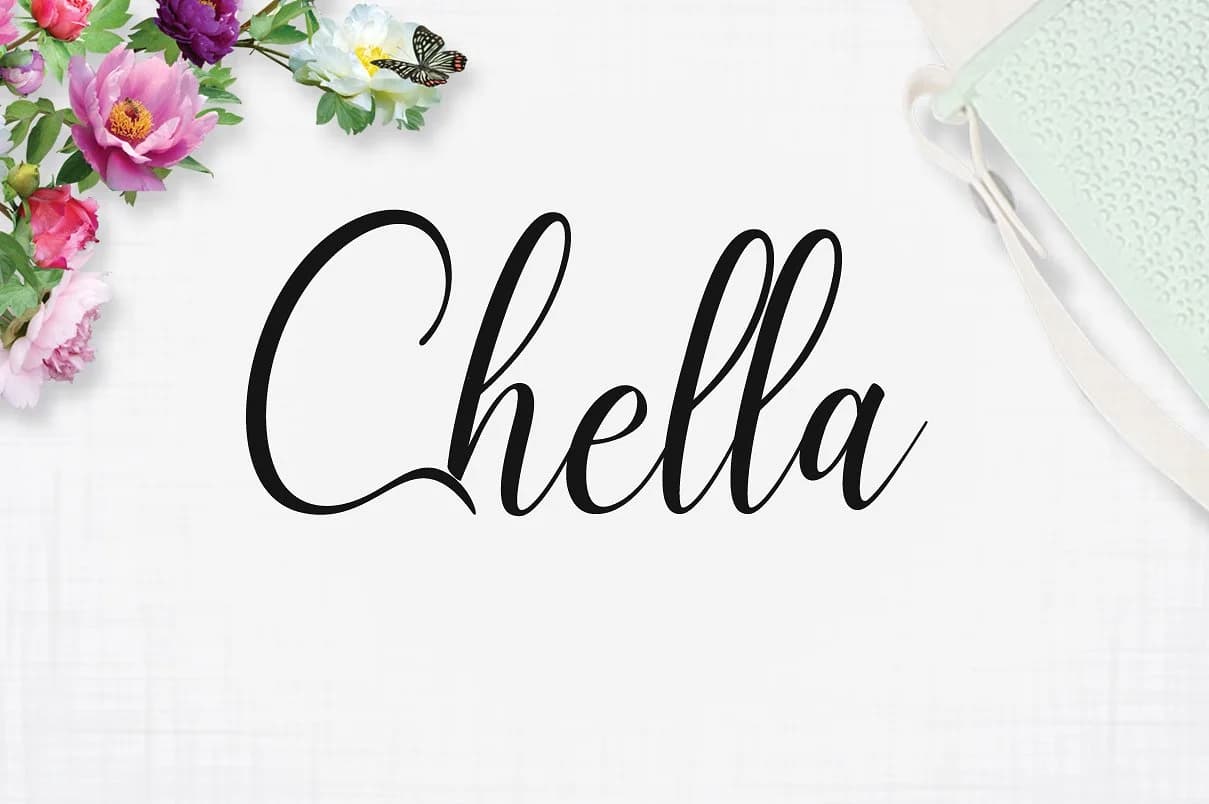
Chella by Greenland is a contemporary handwritten script that brings fluid elegance to modern creative work. With its smooth letterforms and refined stroke quality, this typeface strikes a balance between personality and sophistication, working across a diverse range of design applications without feeling overwrought or excessive.
This script excels for wedding invitation suites, where its balanced rhythm sets the right tone between formality and warmth. It's equally at home in personal branding systems, logo designs, and editorial headings that benefit from a distinctly human touch. The typeface also shines for custom packaging and product labels, where small businesses and independent makers can leverage its hand-crafted aesthetic to establish genuine brand credibility. Greeting card designs, event stationery, and social media graphics further demonstrate Chella's versatility and legibility at various sizes and contexts.
What makes this script particularly useful is its ability to serve effectively as both a primary display font for headlines and as a complementary typeface in mixed typography layouts. The consistent letterforms maintain strong legibility across digital and print applications while preserving the organic qualities that define handwritten scripts. Whether you're creating brand identity materials, packaging design, stationery suites, or digital content, Chella brings cohesive character and personality to your work. Add this modern script to your collection on Creative Fabrica and unlock new creative possibilities for your projects.
Chella Font is a script font that shines as a display or heading face. Pair it with a clean sans-serif or serif font for body text β the contrast creates a clear hierarchy while the two styles stay balanced and easy to read.